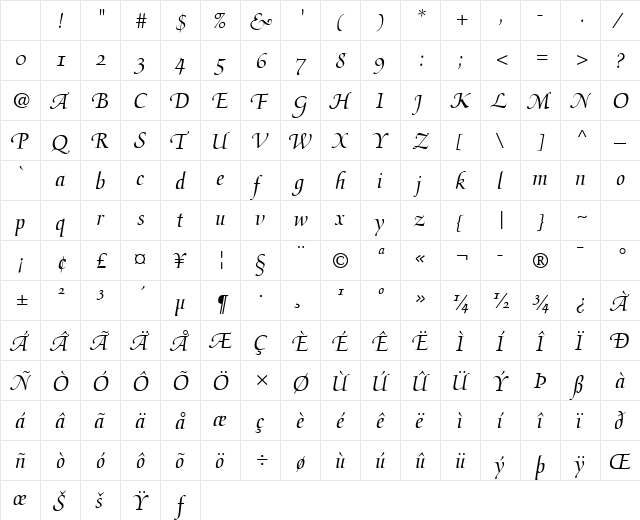
Complete MediciScript LT Std Regular glyph index. Displaying only characters natively supported by MediciScript LT Std Regular font.
MediciScript LT Std flows with the natural rhythm of handwritten lettering, making it ideal for designs that call for warmth and personal expression. Its slender proportions lend an understated elegance to any composition.
Font Pairing: Combine MediciScript LT Std with a simple geometric sans for maximum contrast - the tension between flowing curves and clean structure is a classic typographic pairing.
Pro Tip: Use MediciScript LT Std for short runs of text - names, titles, or taglines. Extended body copy in script faces tires the eye quickly.